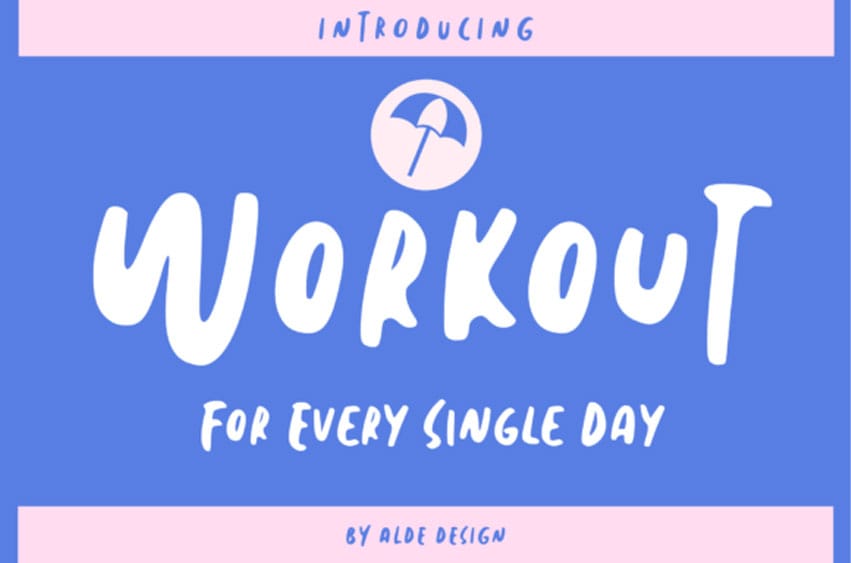
Workout Font is a whimsical, laid-back, and fun display font.
No matter the topic, this font will be an incredible asset to your font library, as it has the potential to elevate any creation.